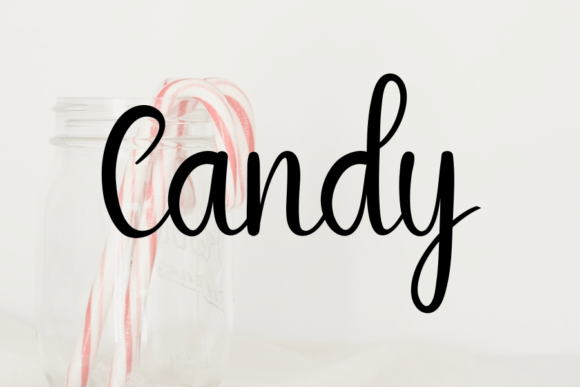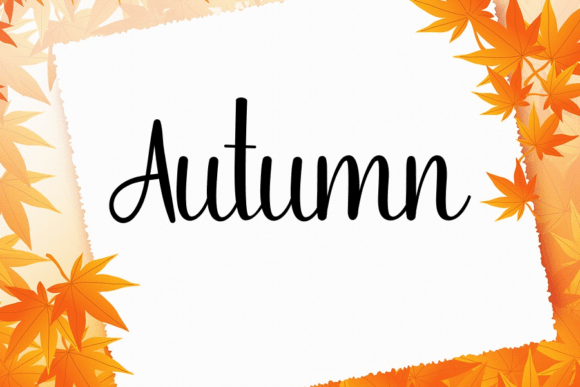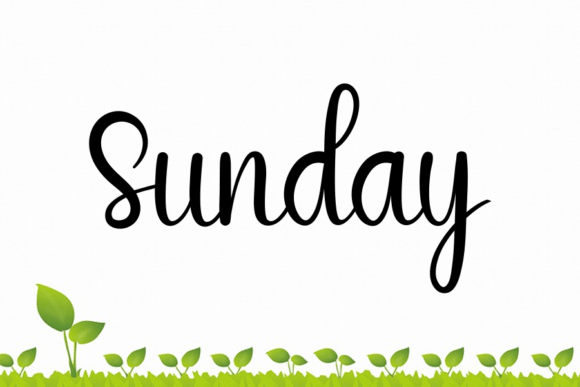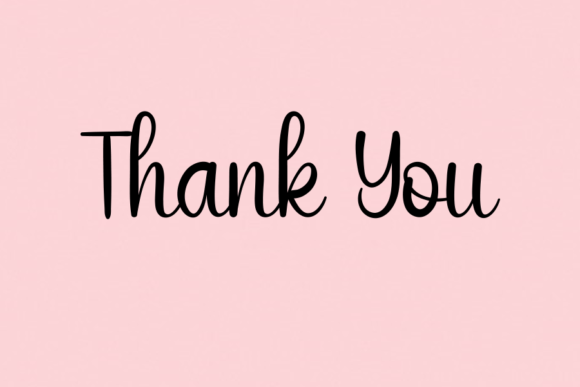
“Simple Signature” is an exquisite and visually captivating handwritten font that radiates a charming and elegant aura. Characterized by characters that gracefully dance along the baseline, this font possesses a unique and luxurious quality, making it the perfect choice to infuse a touch of opulence into any design project you set out to create.
The distinctive characteristic of “Simple Signature” lies in its playful and artistic arrangement of characters. Each character seems to effortlessly glide along the baseline, creating a dynamic and visually engaging effect. This whimsical quality adds an element of liveliness and sophistication to your designs, ensuring that they capture attention and leave a lasting impression.
The handwritten style of “Simple Signature” encapsulates the essence of creativity and personalized charm. It exudes warmth and approachability, making it a versatile choice for a wide range of design projects. Whether you’re crafting elegant invitations, designing product packaging, creating social media graphics, or establishing a brand identity, “Simple Signature” will introduce a delightful and sophisticated touch to your work.
The name itself, “Simple Signature,” suggests an air of authenticity and elegance, and this font lives up to that expectation. The characters flow gracefully, forming a harmonious and visually pleasing composition. This font’s ability to transform a simple signature into a work of art is a testament to its unique charm.
Incorporating “Simple Signature” into your design projects will undoubtedly infuse them with a sense of whimsy and luxury. Its one-of-a-kind handwritten style and dynamic character arrangement make it an ideal choice for designs that aim to captivate and delight the audience. Embrace the sweetness and elegance of “Simple Signature” in your next project, and witness how it adds a touch of creative brilliance and sophistication to your creations.